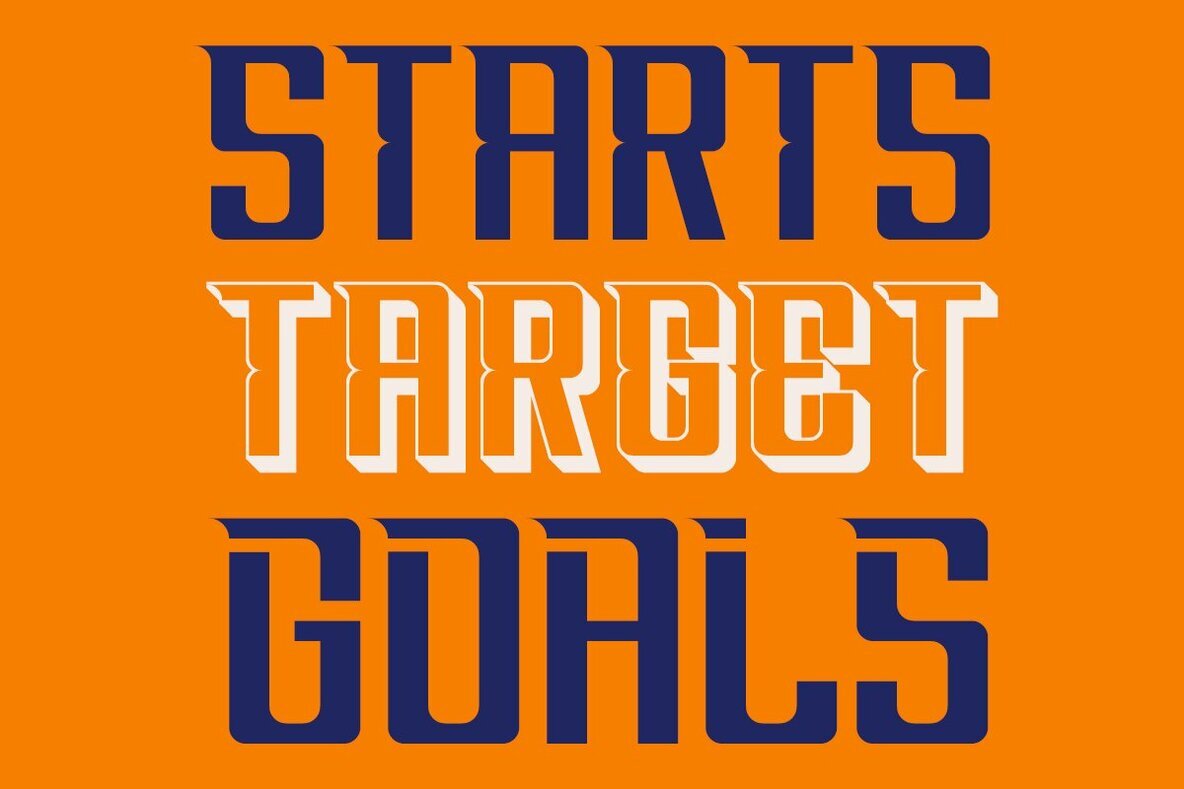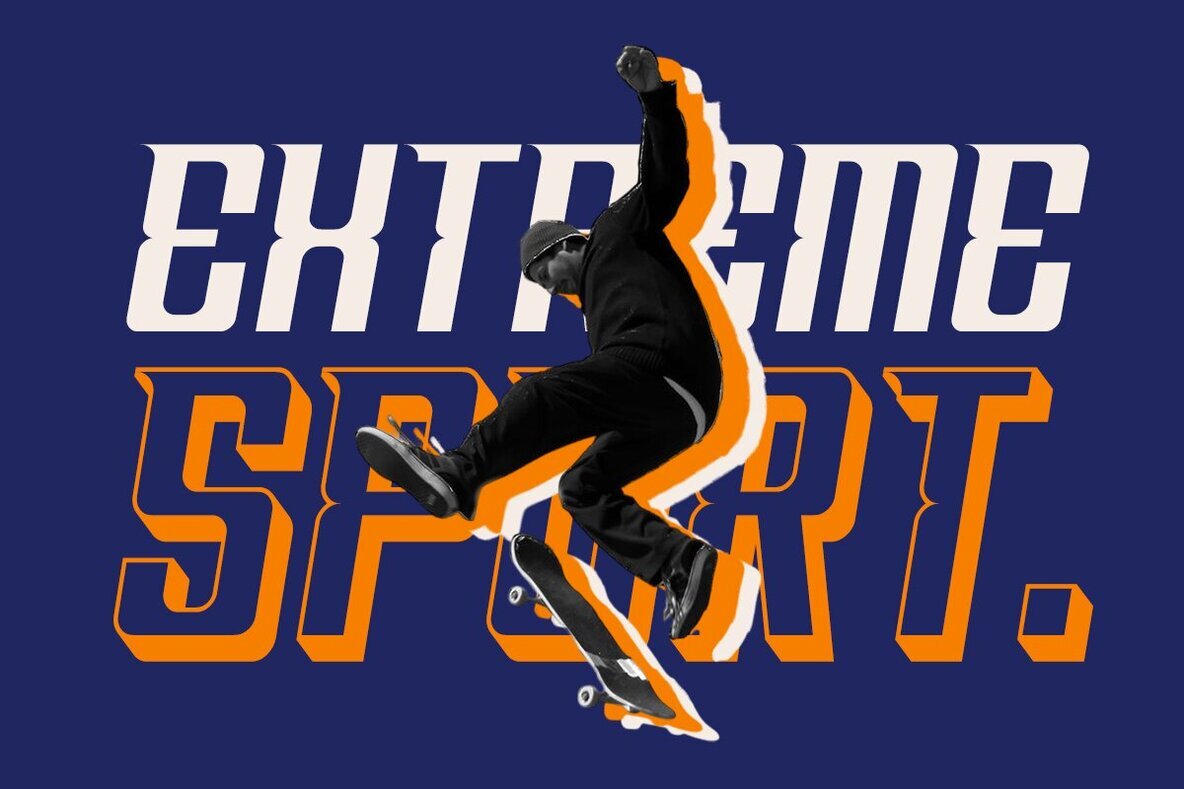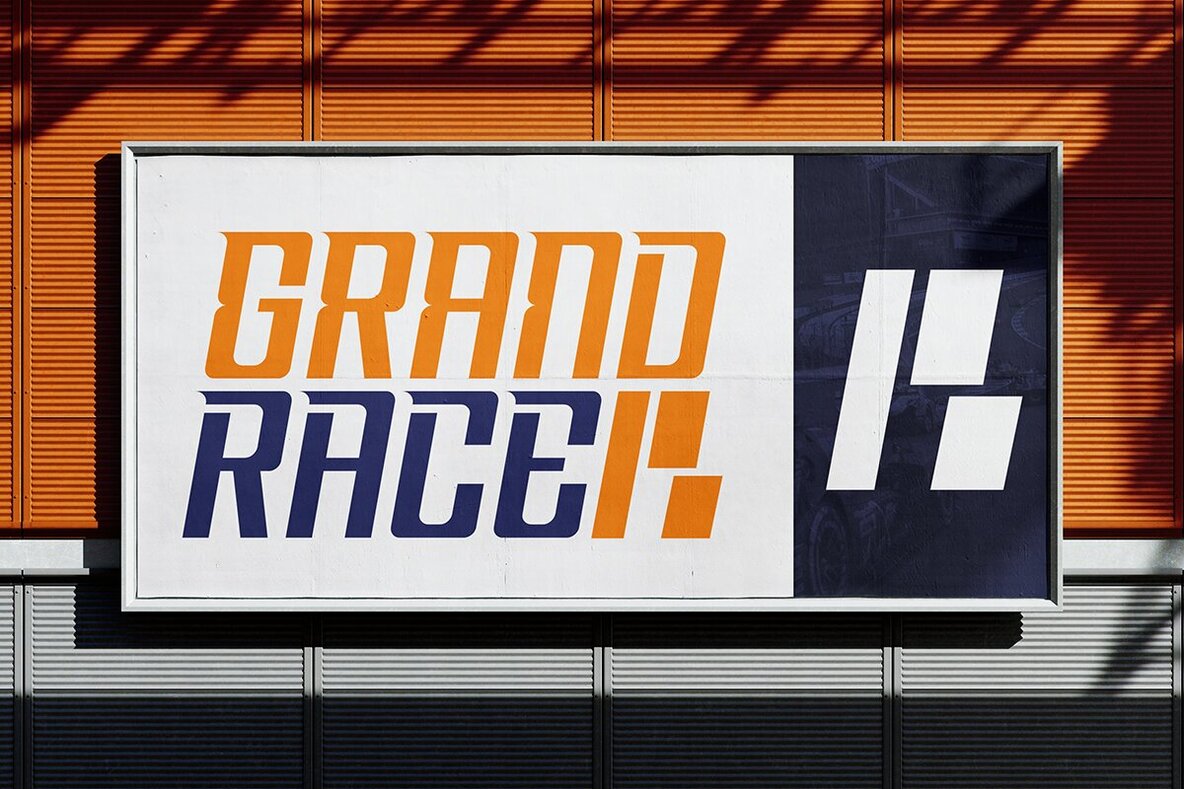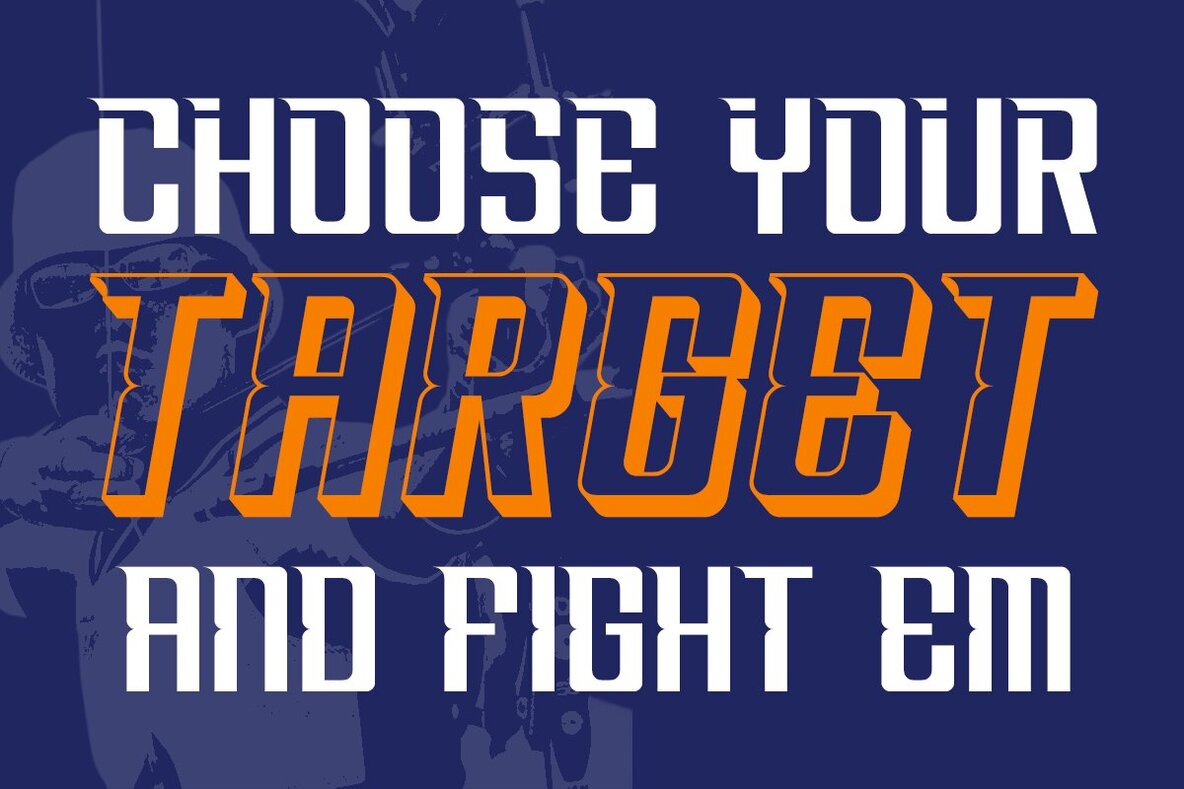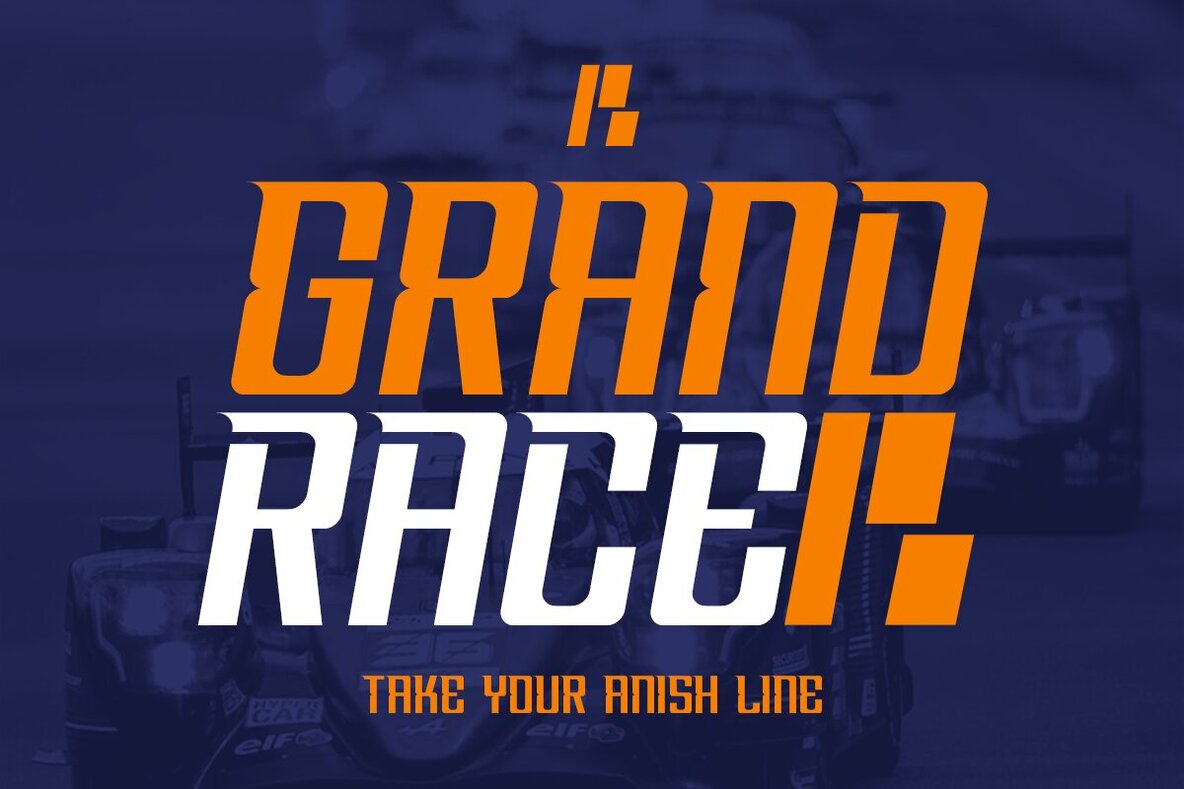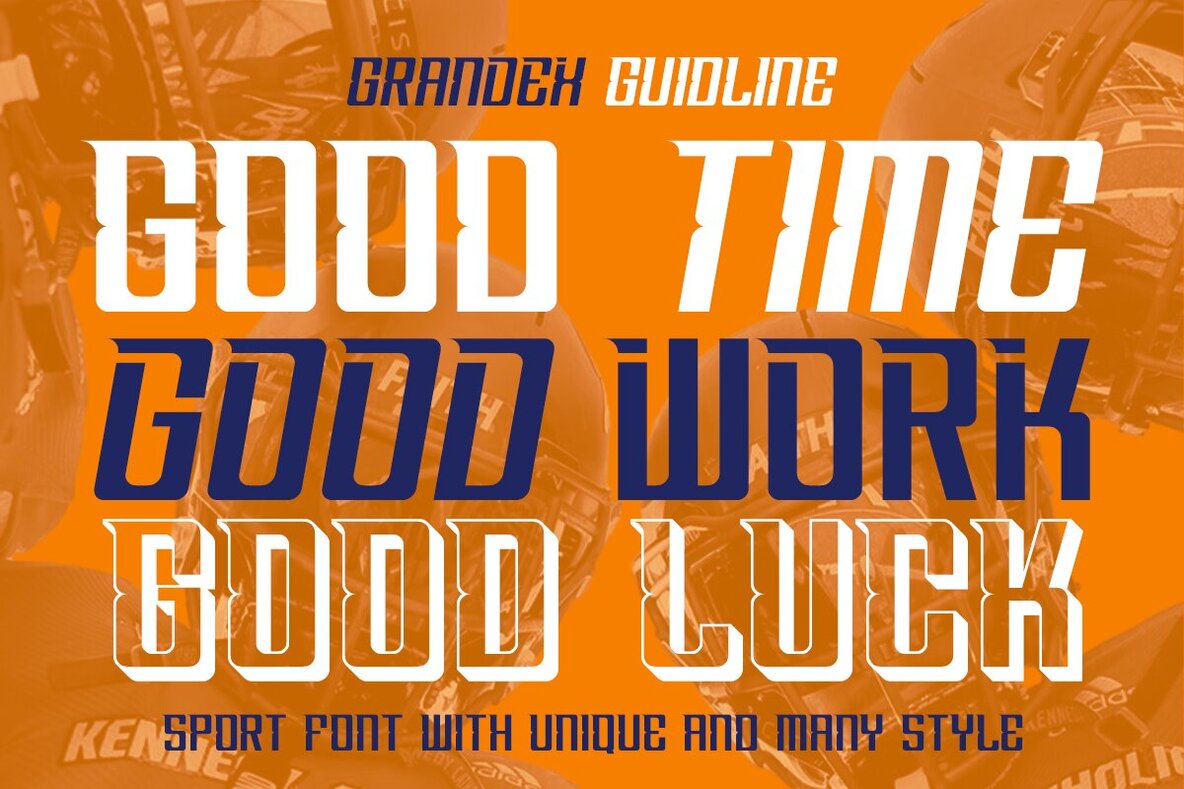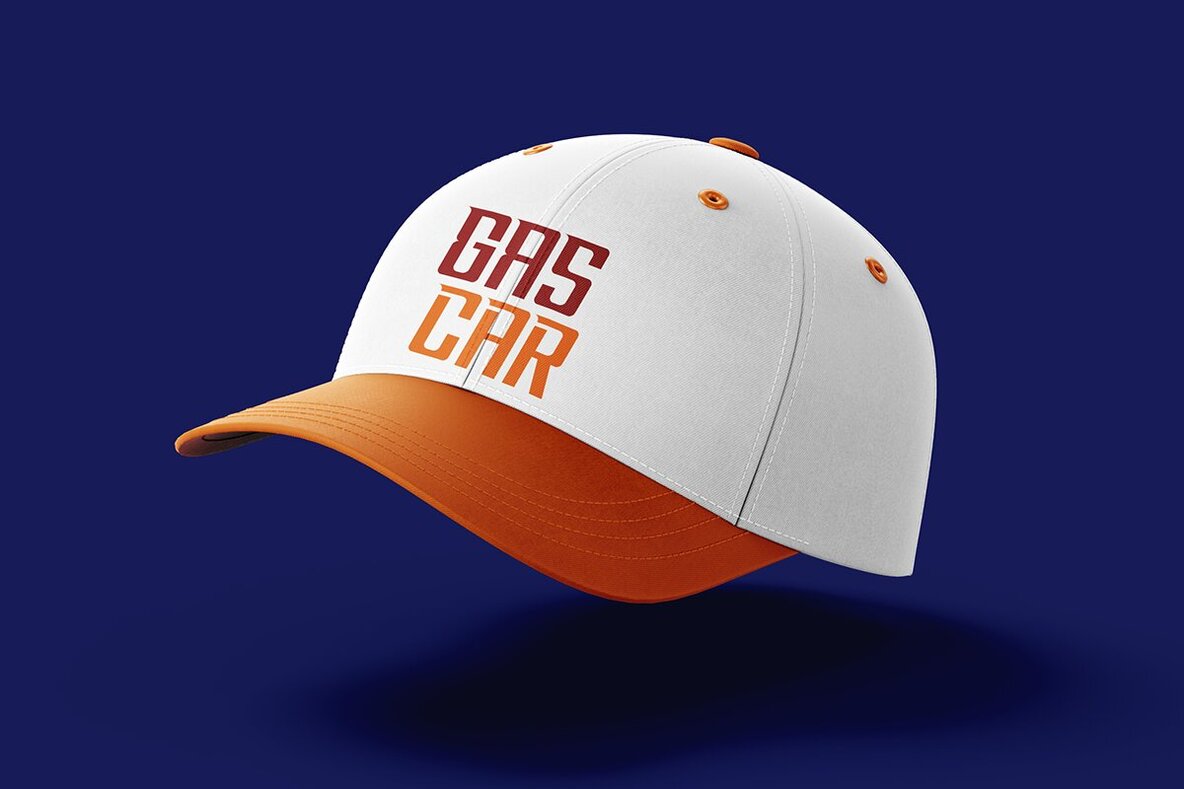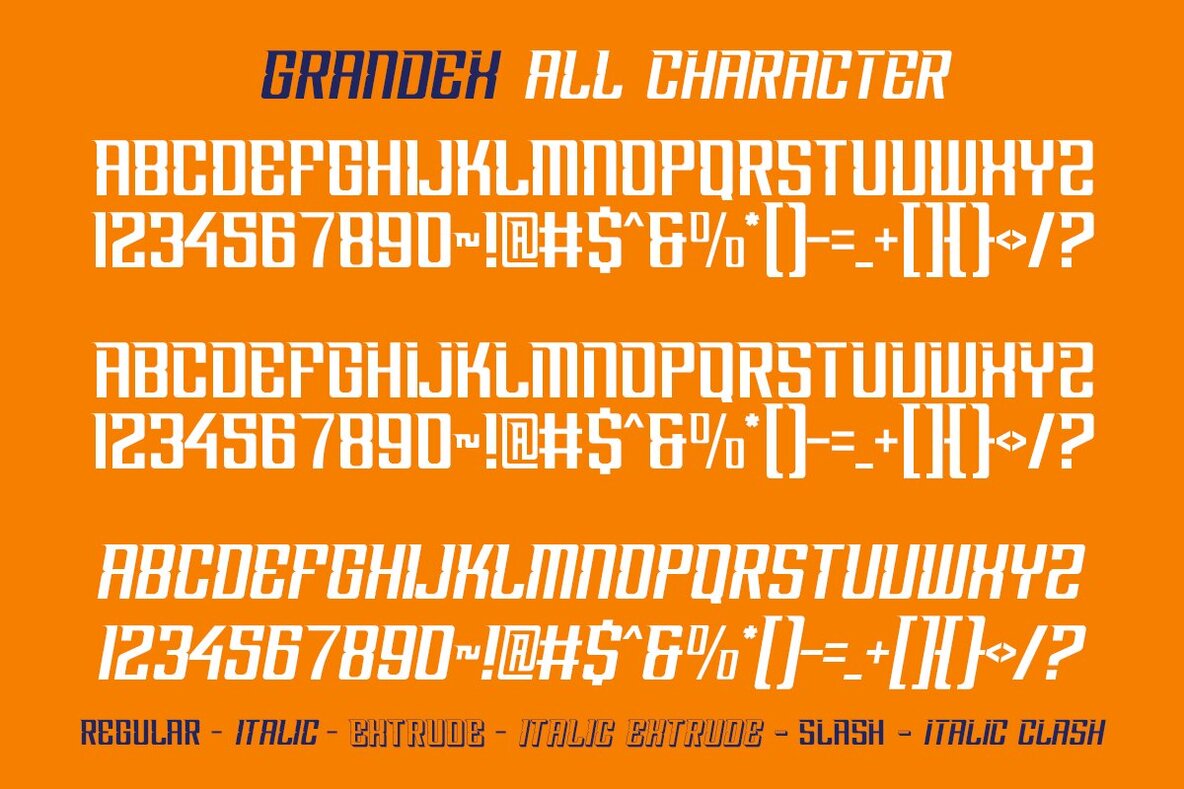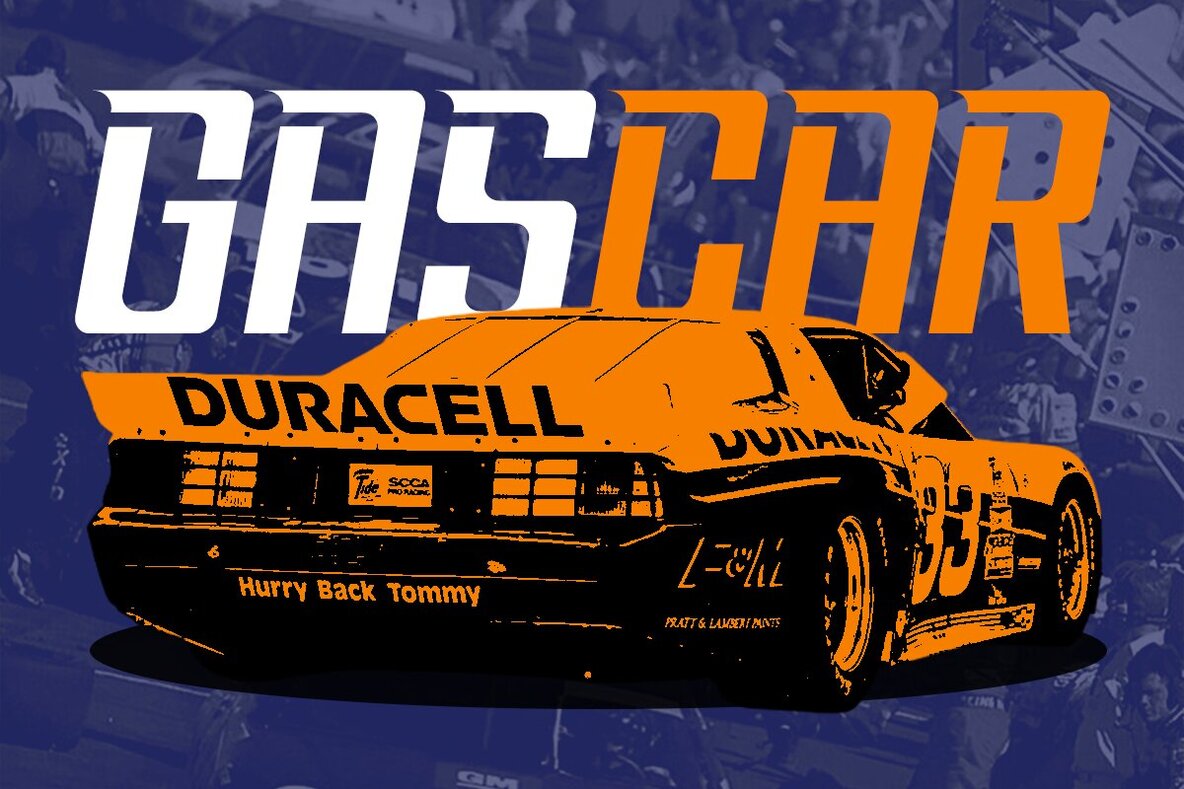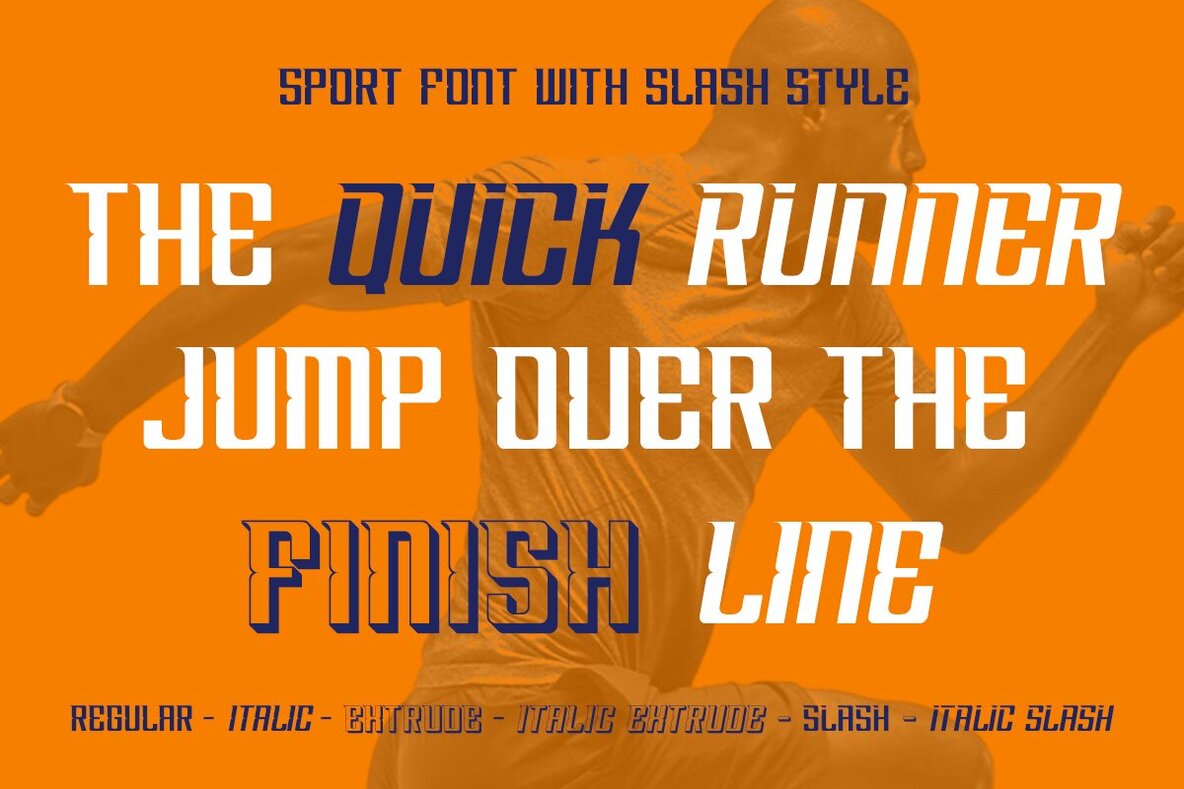
Grandex Font
Grandex is the ultimate modern sport font designed to capture the thrill and intensity of racing. With bold, all-caps letterforms that evoke speed and power, Grandex embodies the roaring energy of high-performance machines. Its sharp corners and solid shapes bring the racing spirit to life, making it an ideal choice for designs that demand attention. Grandex is available in six dynamic styles: Regular, Italic, Extrude, Italic Extrude, Slash, and Italic Slash, giving you the flexibility to match the exact tone and energy of your project.
Whether creating logos, headlines, posters, movie titles, or magazines, Grandex ensures your projects stand out with a commanding presence. The strong, confident letterforms offer multilingual support and are compatible with both PC and Mac. Installation is straightforward, and it is accessible in Adobe Illustrator, Adobe Photoshop, Microsoft Word, and Canva. PUA encoded characters ensure full accessibility without additional design software. Enhance your sports-themed designs with Grandex, the font for bold and impactful typography.